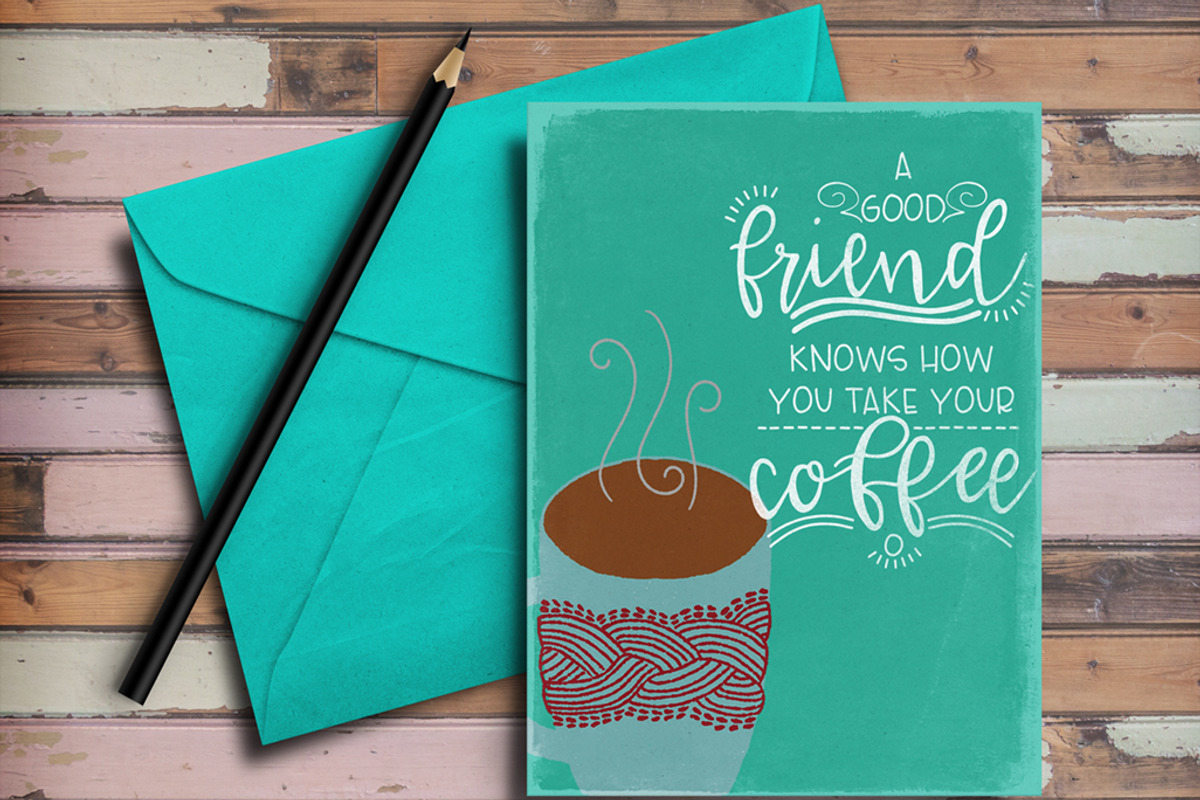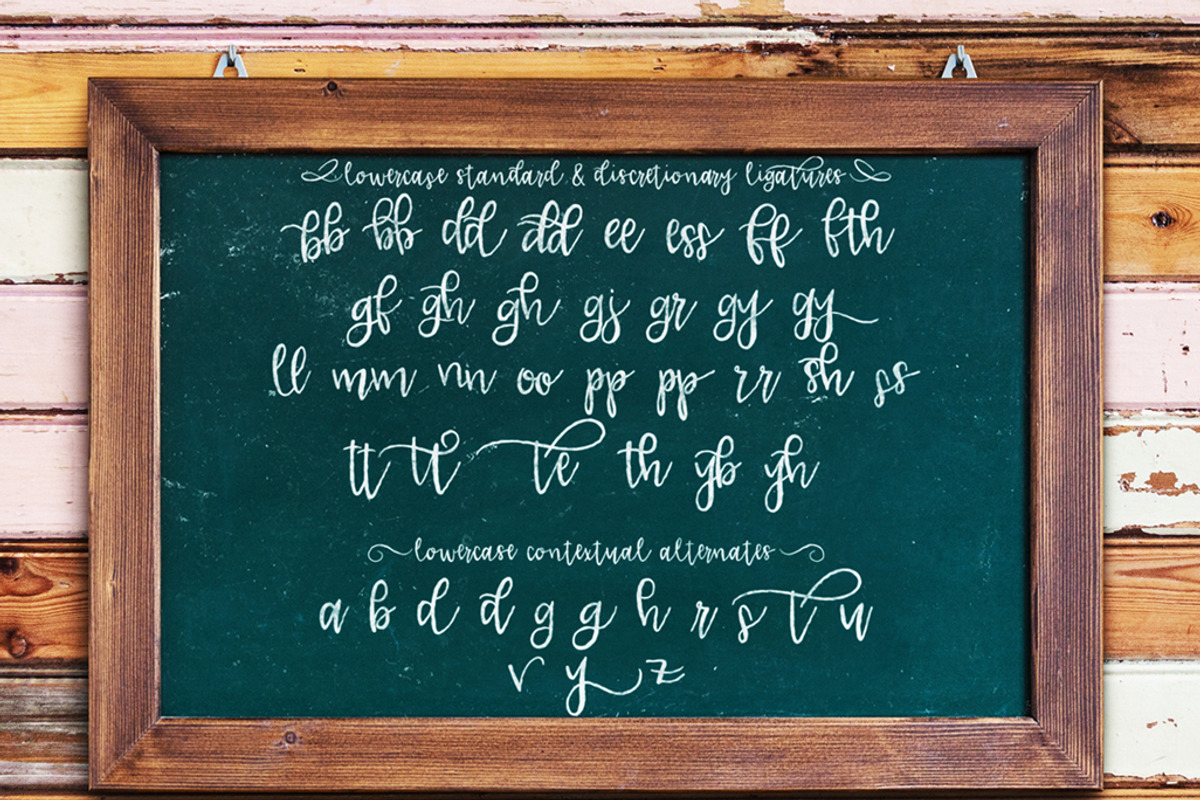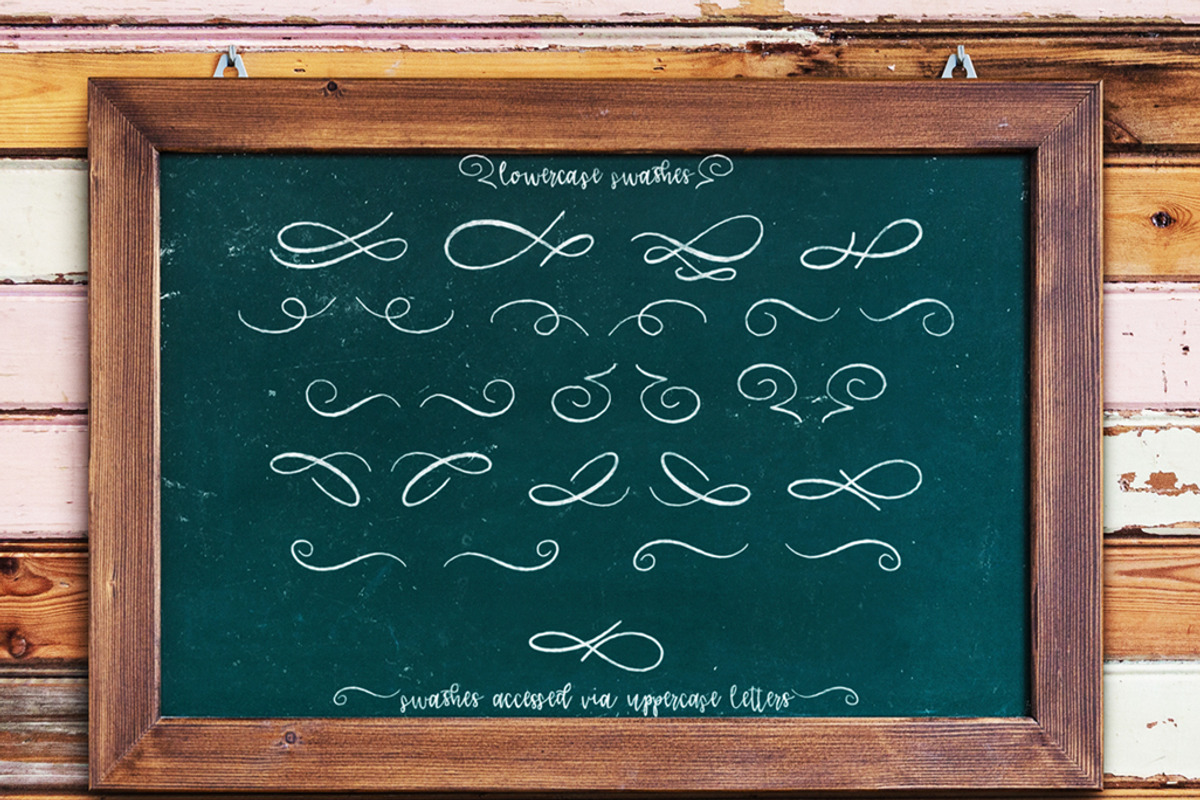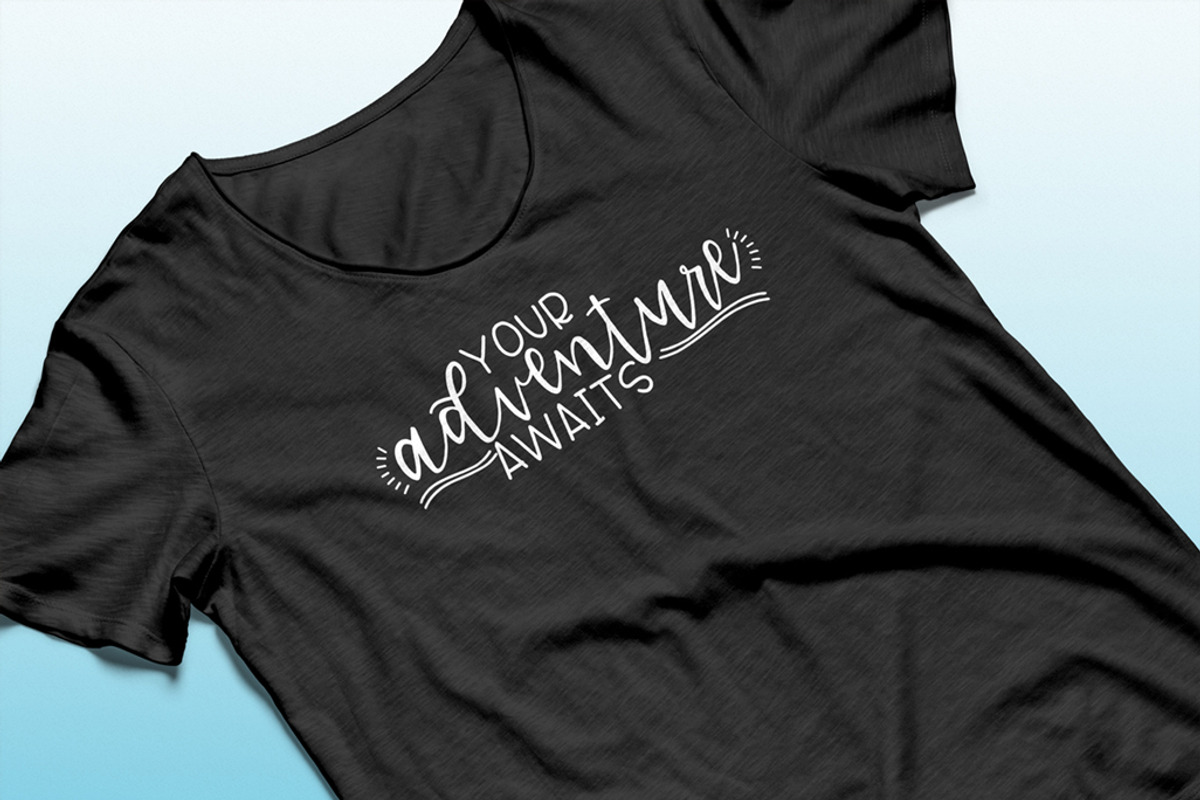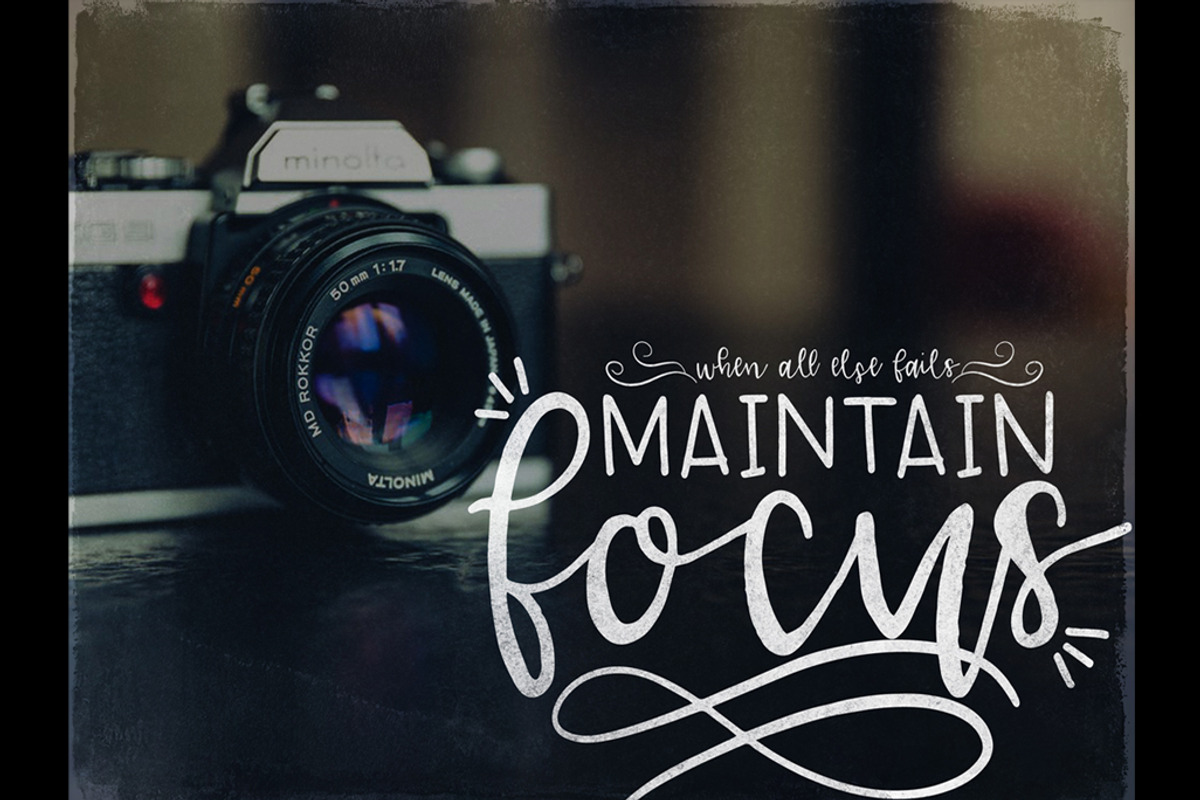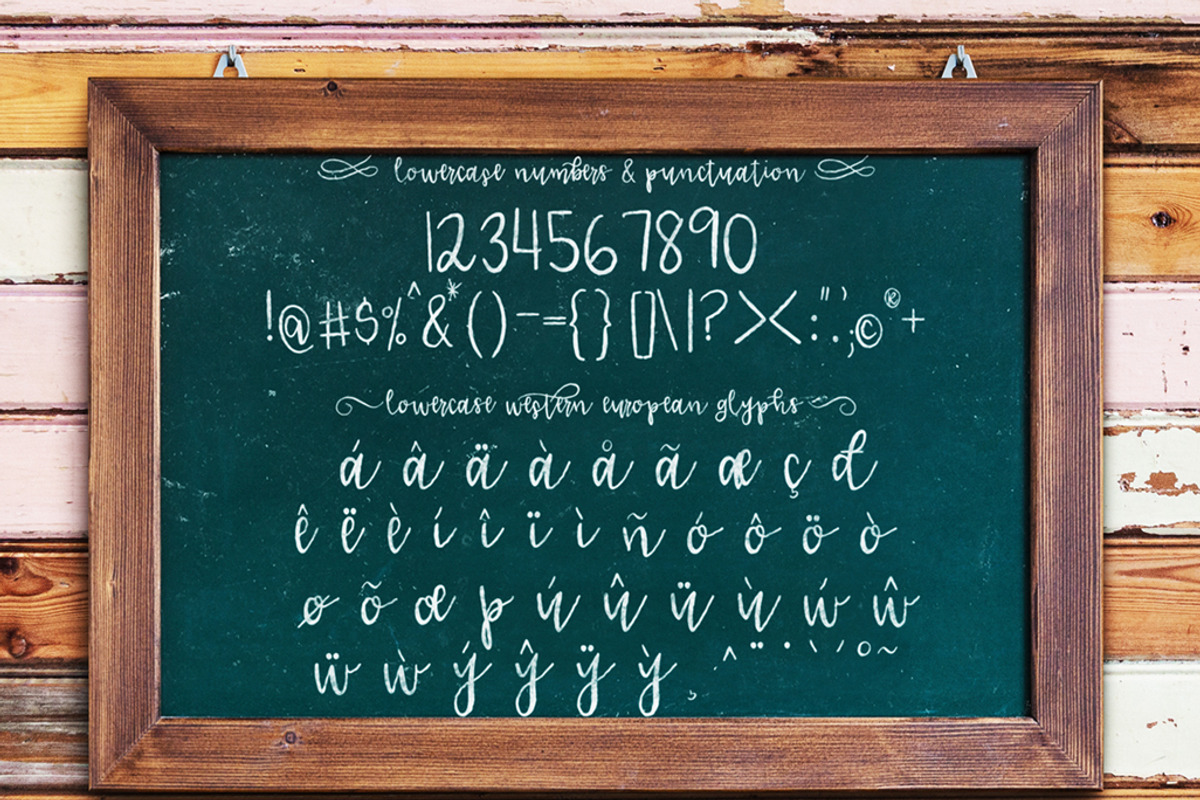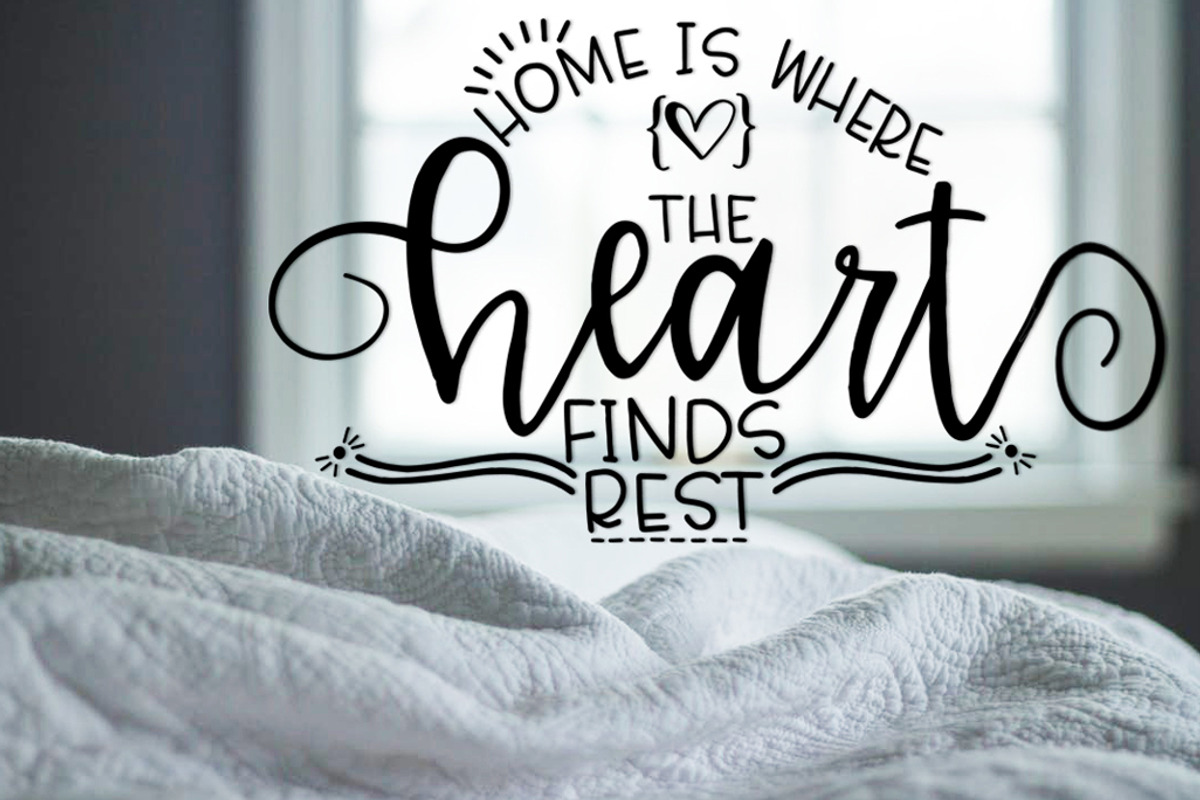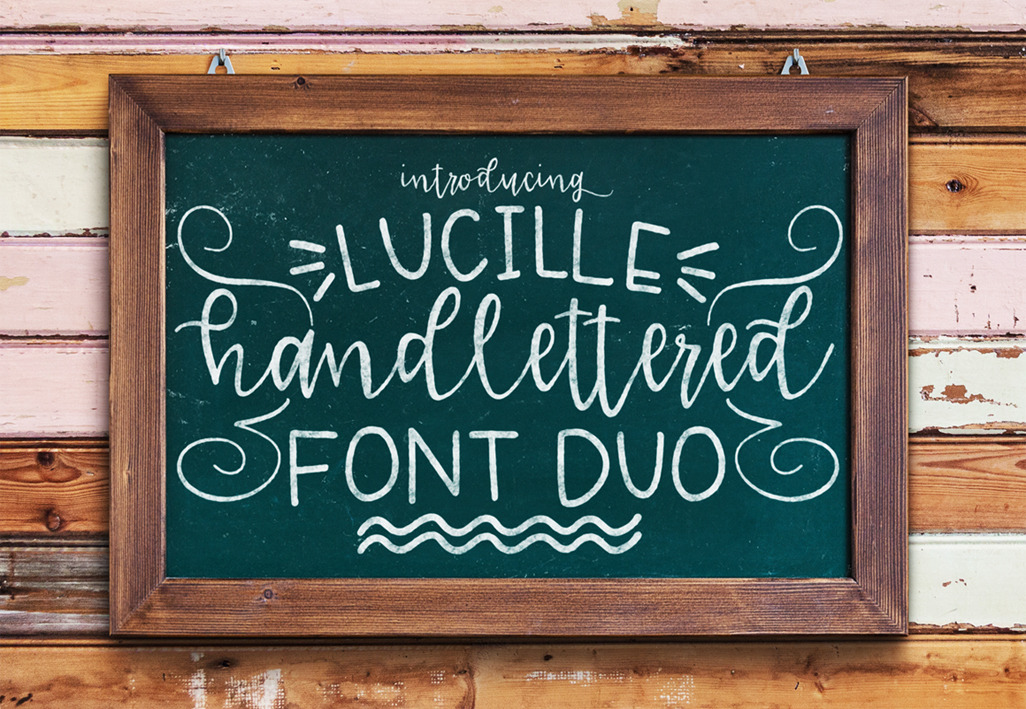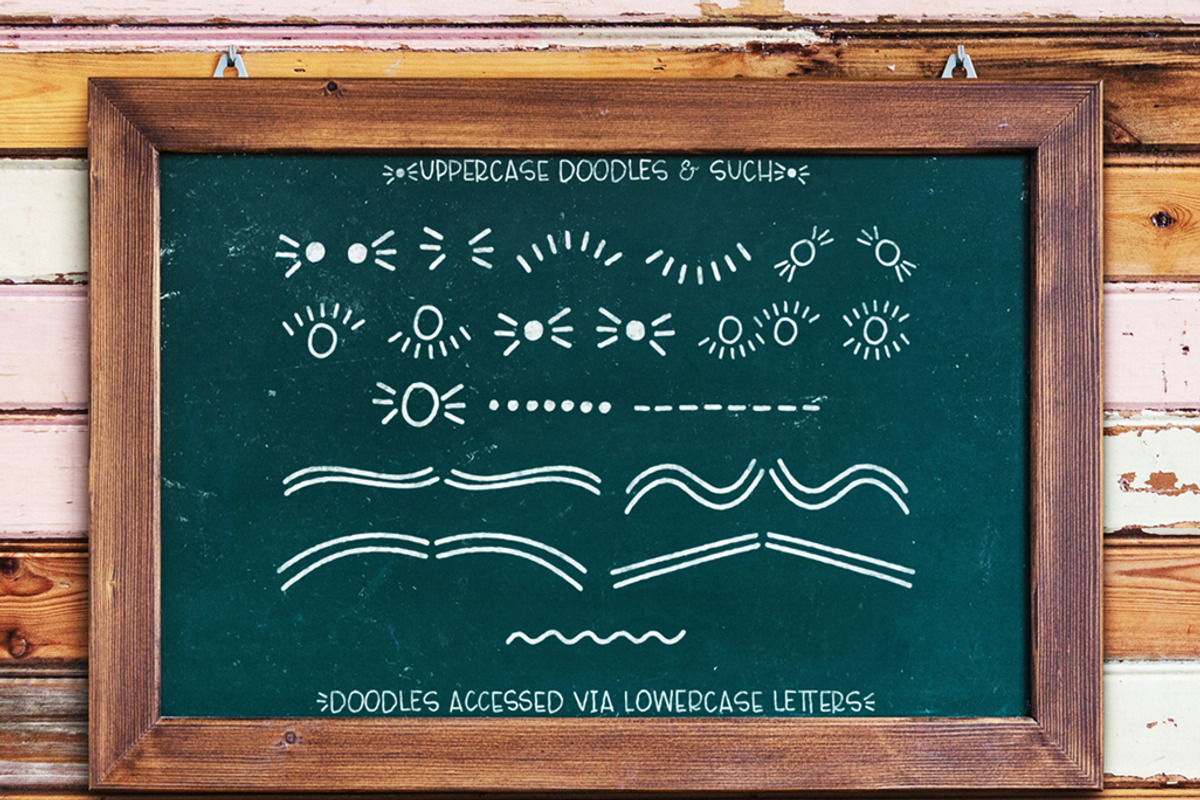
Lucille Hand Lettered Font Duo
Give your designs a hand-lettered dose of personality with font duo, Lucille Handlettered! This font (uppercase Print and lowercase Script) was designed to work perfectly with each other to create a unique and genuine hand-lettered look and feel to all your projects.
Perfect for greeting cards, branding, social media, packaging, magazine layouts, prints and more!
Lucille Handlettering includes 3 styles (in two fonts), created to pair perfectly together to bring your designs to life: Uppercase Print, Lowercase Script, and Doodles/Swashes.
*An upppercase Print font with 30 custom ligatures for more unique, hand drawn look. Includes numbers, punctuation, and 26 hand drawn doodles (using the lowercase letters)
*A lowercase Script font with 31 custom ligatures and 14 contextual alternates to create an incredible hand-lettered look. Includes numbers, punctuation, and 26 hand drawn swashes (using the uppercase letters)